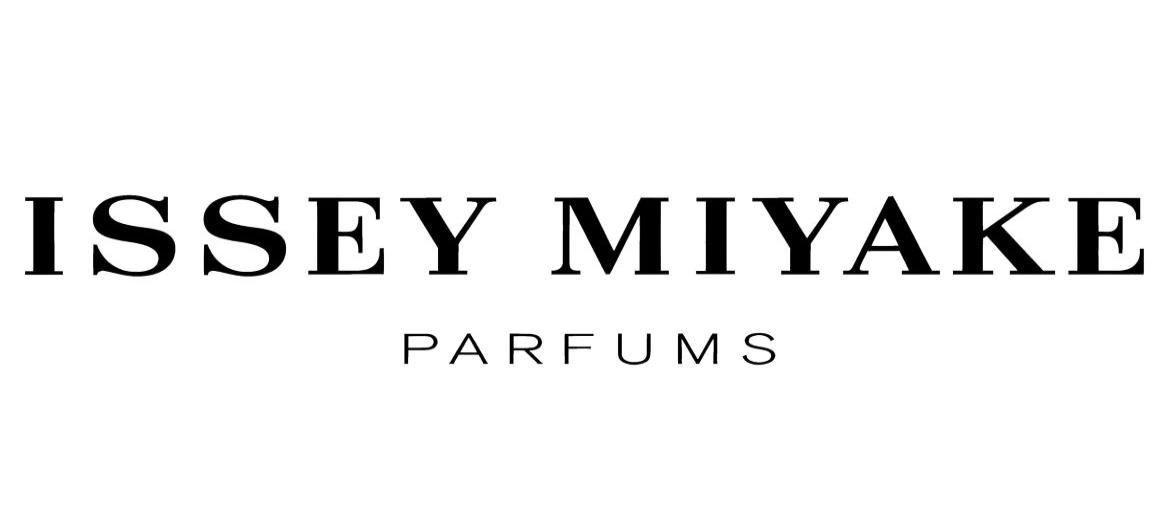
Issey Miyake Font
What Font is Issey Miyake?
Issey Miyake Font reflects the sleek, modern, and minimalist aesthetic of the iconic fashion brand Issey Miyake. While the logo is likely a custom-designed typeface, a close commercial match is Linotype Gianotten Pro Bold, and there is also a free alternative font available for designers who want to replicate the brand’s distinctive style. This font works perfectly for fashion-inspired graphics, branding projects, or any creative design requiring clean, contemporary typography.